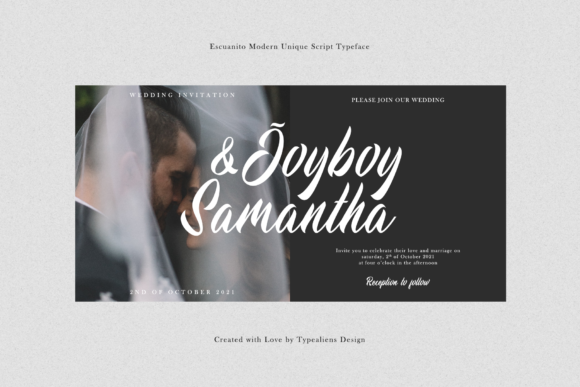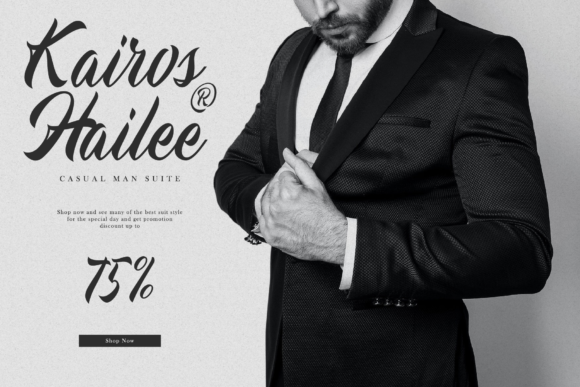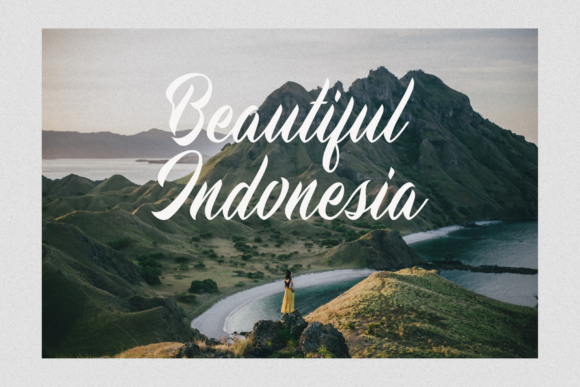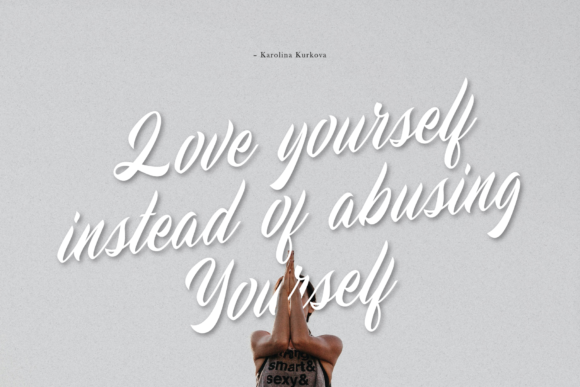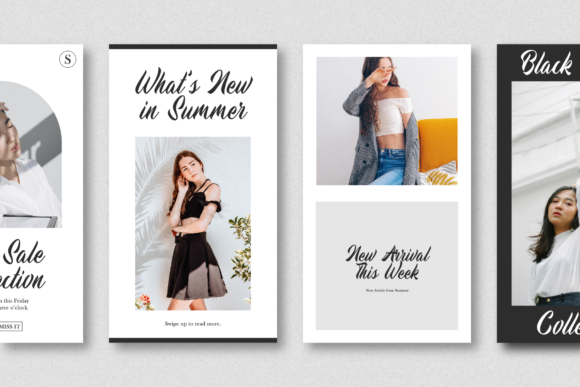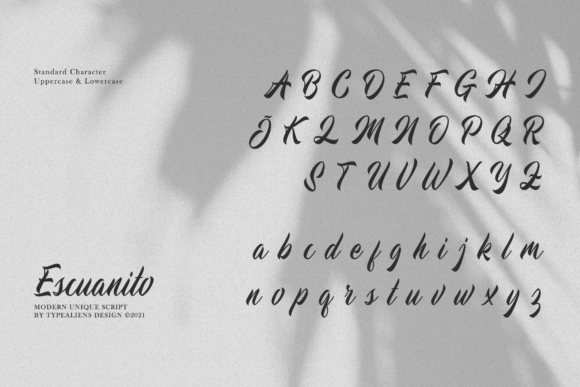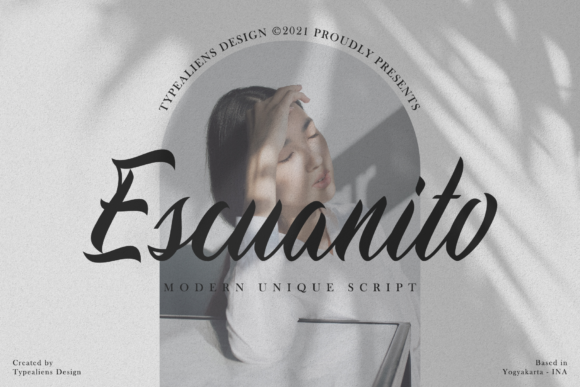
Discover the Elegance of Escuanito Font: Elevate Your Designs with Delicate Flair
Are you on the hunt for a font that adds a touch of sophistication and elegance to your designs? Look no further than the Escuanito font. This delicate, elegant, and flowing handwritten font is perfect for designers and crafters looking to infuse their creations with a sense of refinement and poise. In this article, we’ll dive into the world of Escuanito font, exploring its features, benefits, and uses, and provide you with valuable insights on how to make the most of this beautiful typeface.
What is Escuanito Font?
Escuanito is a carefully crafted handwritten font that boasts beautiful, well-balanced characters. Its delicate and flowing design makes it an excellent choice for a wide range of design projects, from elegant branding and packaging to lovely stationery and digital media. The font’s unique charm lies in its ability to add a touch of personality to any design, making it perfect for creative professionals and DIY enthusiasts alike.
Key Features of Escuanito Font
• Delicate and Elegant Design: Escuanito’s flowing lines and curves create a sense of movement and fluidity, adding an air of sophistication to your designs.
• Well-Balanced Characters: Each character is meticulously crafted to ensure perfect balance and harmony, making it easy to read and visually appealing.
• Versatility: Escuanito font matches a wide pool of designs, making it an excellent addition to your font library.
Benefits of Using Escuanito Font
So, why should you choose Escuanito font for your next design project? Here are just a few benefits you can expect:
• Adds a Touch of Elegance: Escuanito font instantly elevates your designs, adding a level of sophistication and refinement that’s hard to achieve with other fonts.
• Enhances Readability: The font’s clear and well-balanced characters ensure that your text is easy to read, making it perfect for body text and headings.
• Increases Creativity: With Escuanito font, you can experiment with a wide range of design ideas, from minimalist and modern to vintage and whimsical.
Uses of Escuanito Font
Escuanito font is incredibly versatile, making it suitable for a variety of design projects, including:
• Branding and Packaging: Add a touch of elegance to your brand identity with Escuanito font, perfect for luxury brands, beauty products, and high-end services.
• Stationery and Invitations: Create beautiful stationery, invitations, and greeting cards with Escuanito font, adding a personal touch to your correspondence.
• Digital Media: Use Escuanito font in your digital projects, such as website designs, social media graphics, and email marketing campaigns, to add a level of sophistication and professionalism.
Tips for Using Escuanito Font
To get the most out of Escuanito font, here are a few tips to keep in mind:
• Experiment with Font Sizes: Escuanito font looks great in a variety of font sizes, from large headings to smaller body text.
• Pair with Other Fonts: Combine Escuanito font with other fonts to create a unique and visually appealing typography.
• Play with Colors: Escuanito font looks stunning in a range of colors, from soft pastels to rich jewel tones.
Font Name Escuanito Font
Author typealiens
In conclusion, Escuanito font is a beautiful and elegant handwritten font that’s perfect for designers and crafters looking to add a touch of sophistication to their designs. With its delicate and flowing design, well-balanced characters, and versatility, Escuanito font is an excellent addition to any font library. Whether you’re working on a branding project, creating stationery, or designing digital media, Escuanito font is sure to elevate your designs and make them come alive!